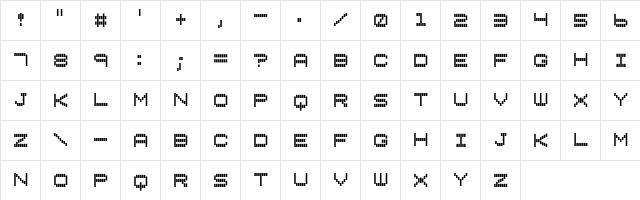
Vertical Tuning Regular
Design Context for Vertical Tuning Typeface
Vertical Tuning is a composed and adaptable typeface that performs quietly and consistently across a wide range of design contexts.